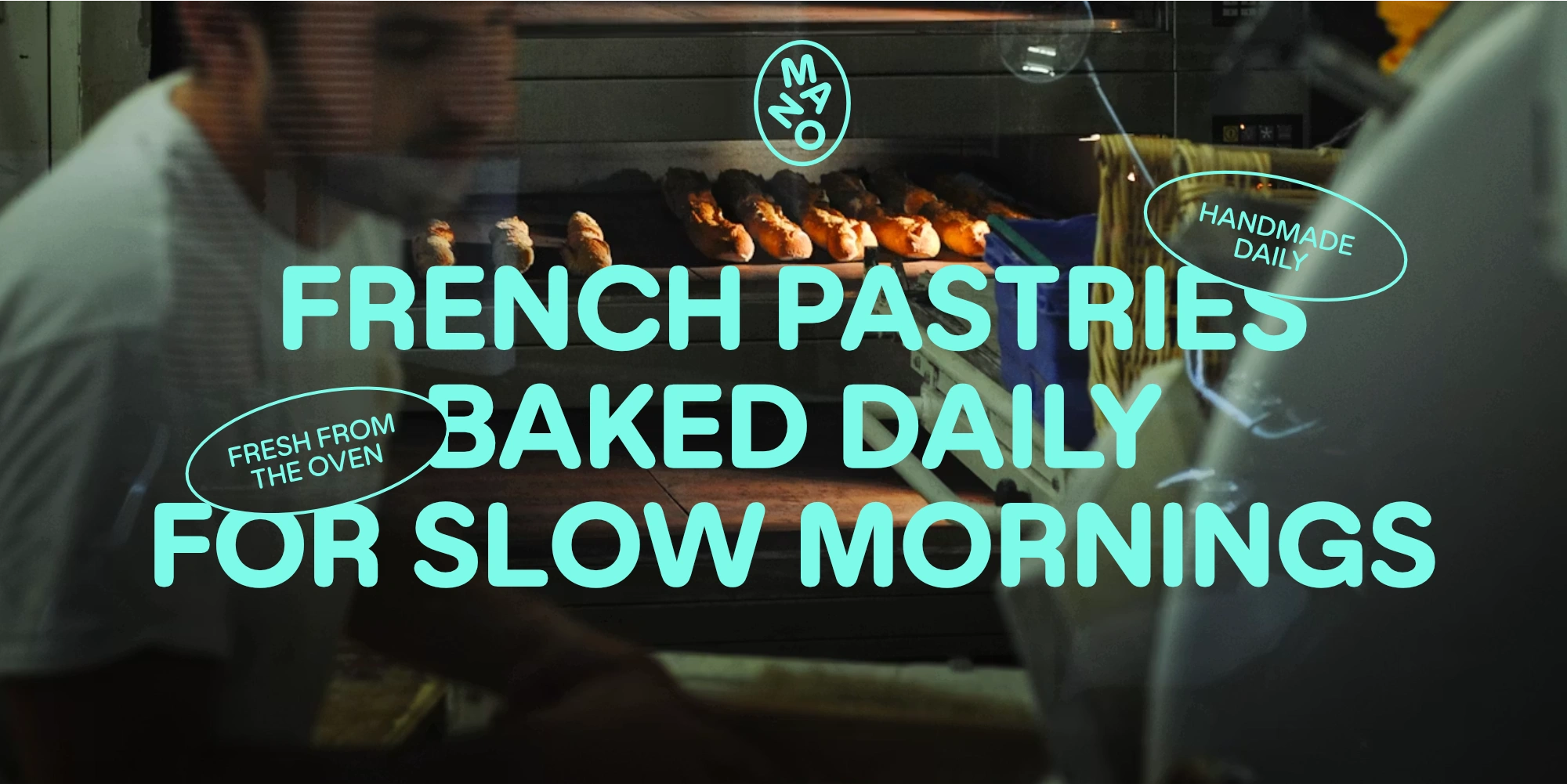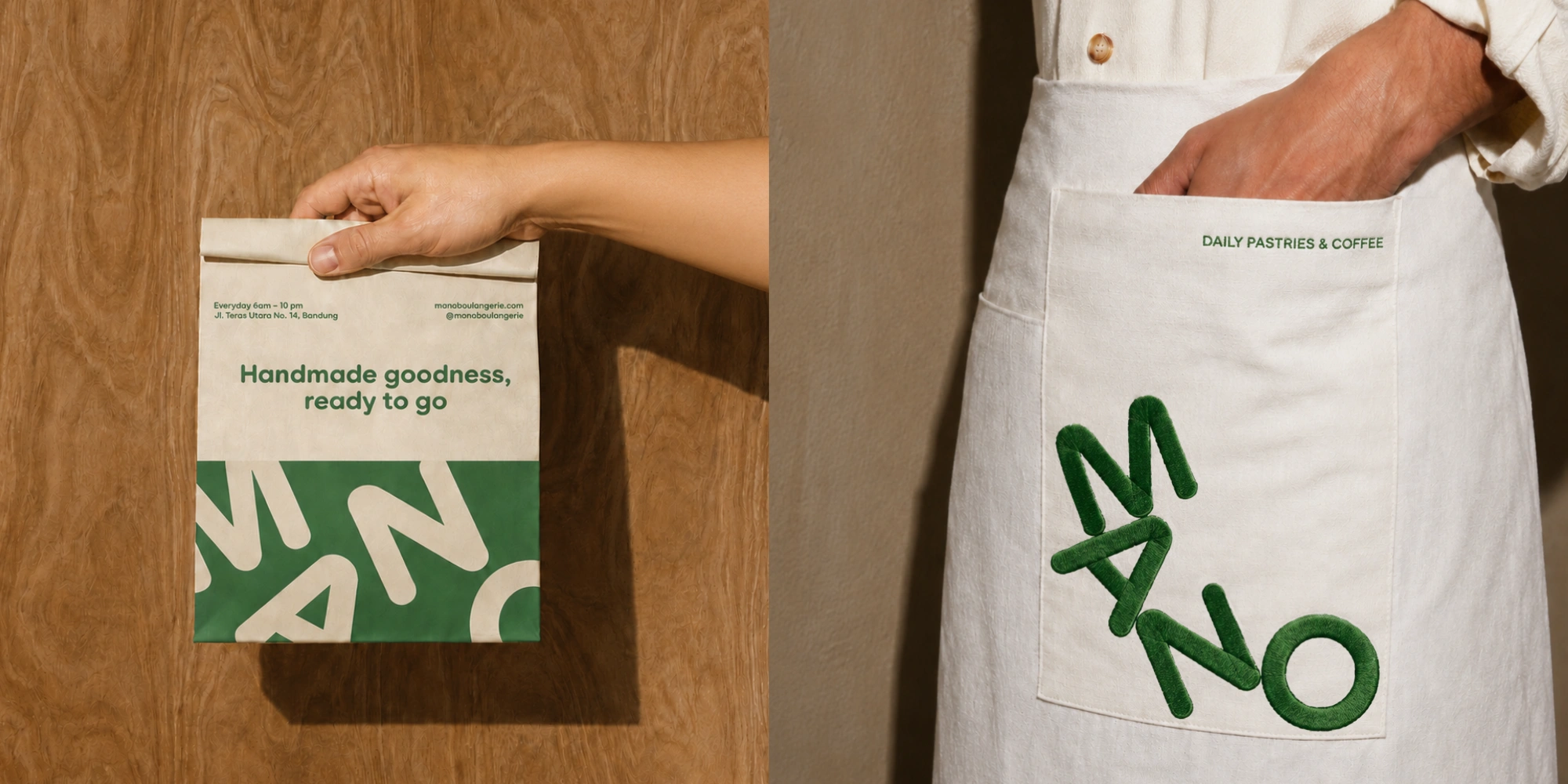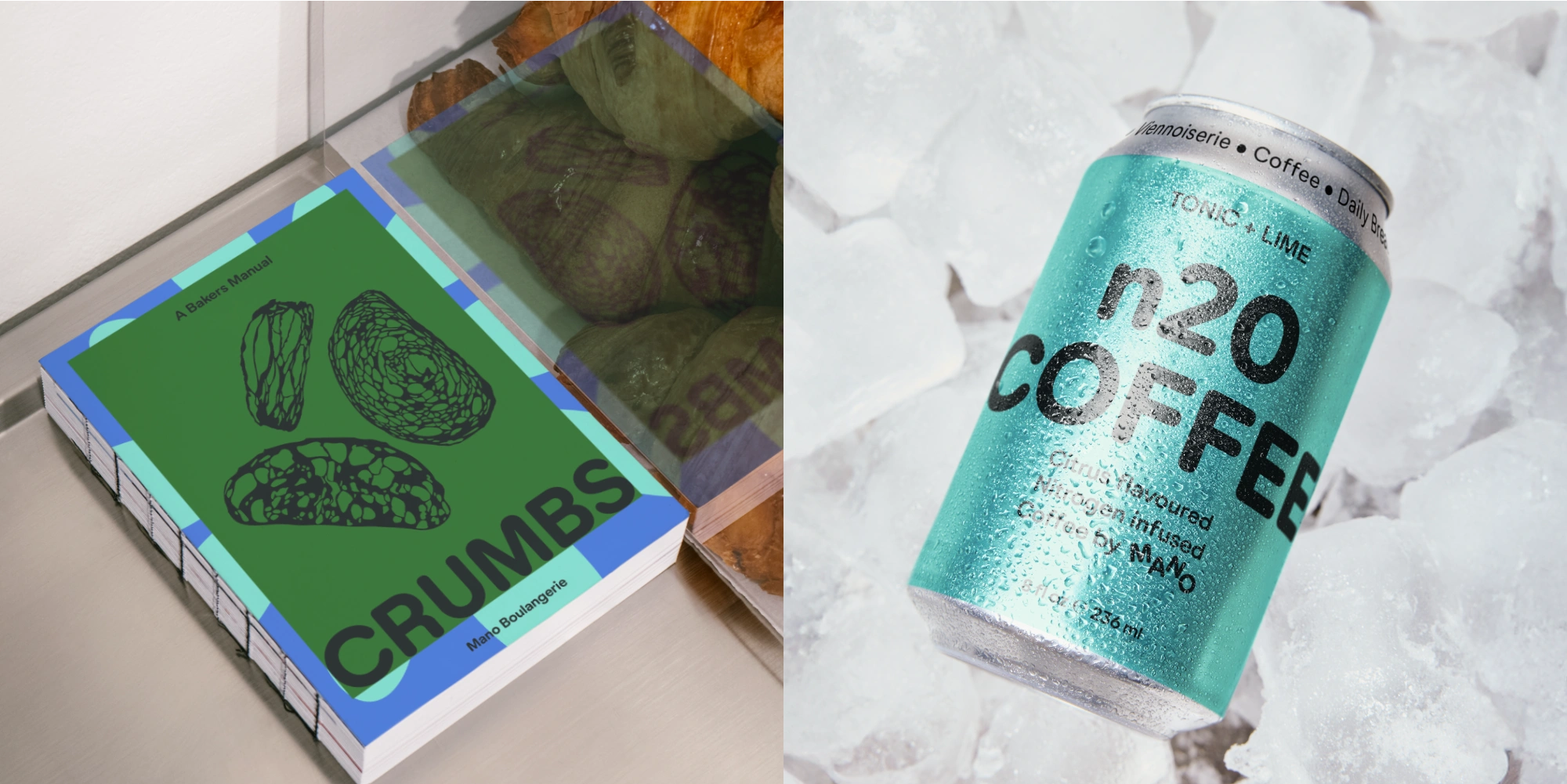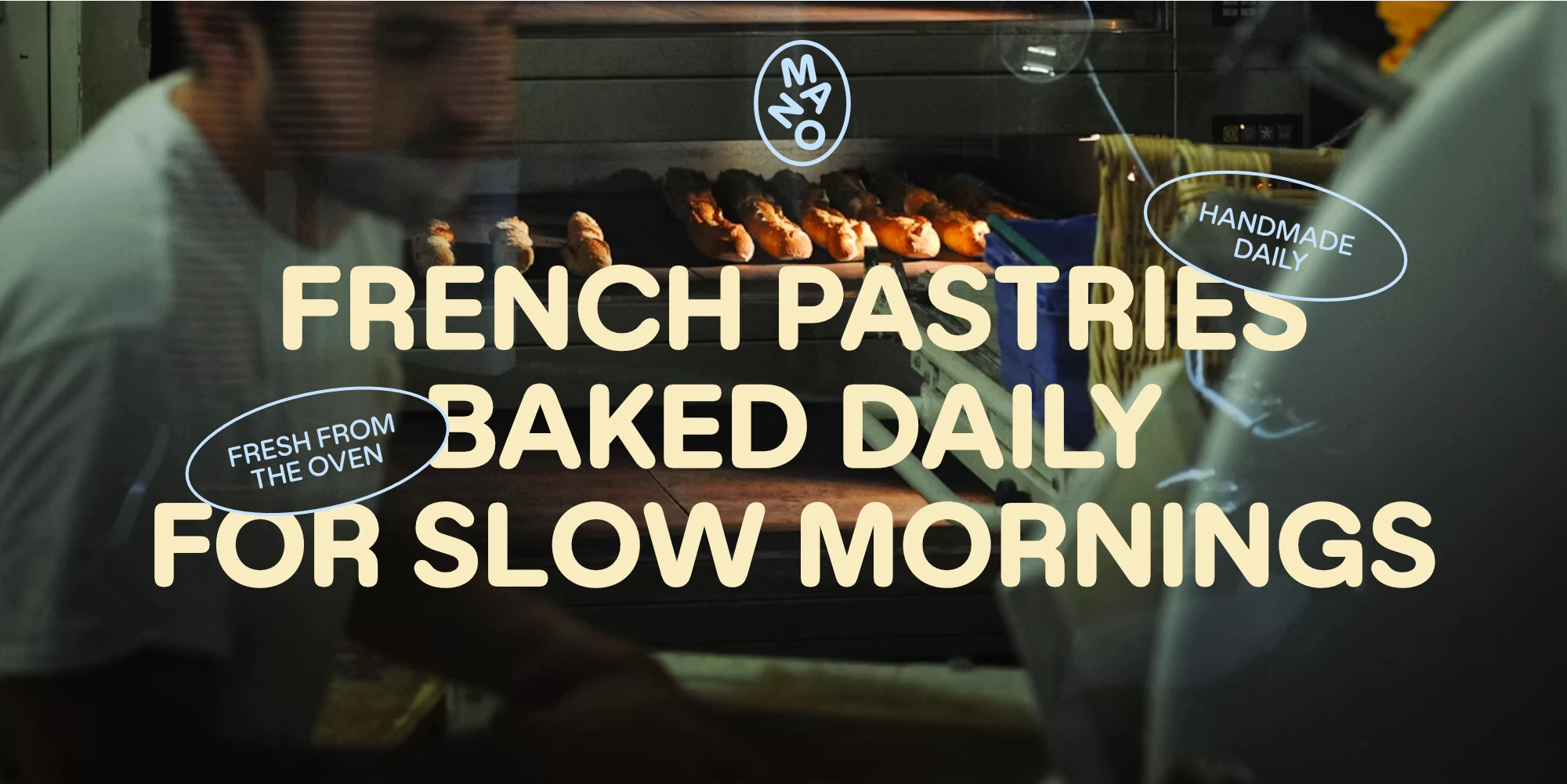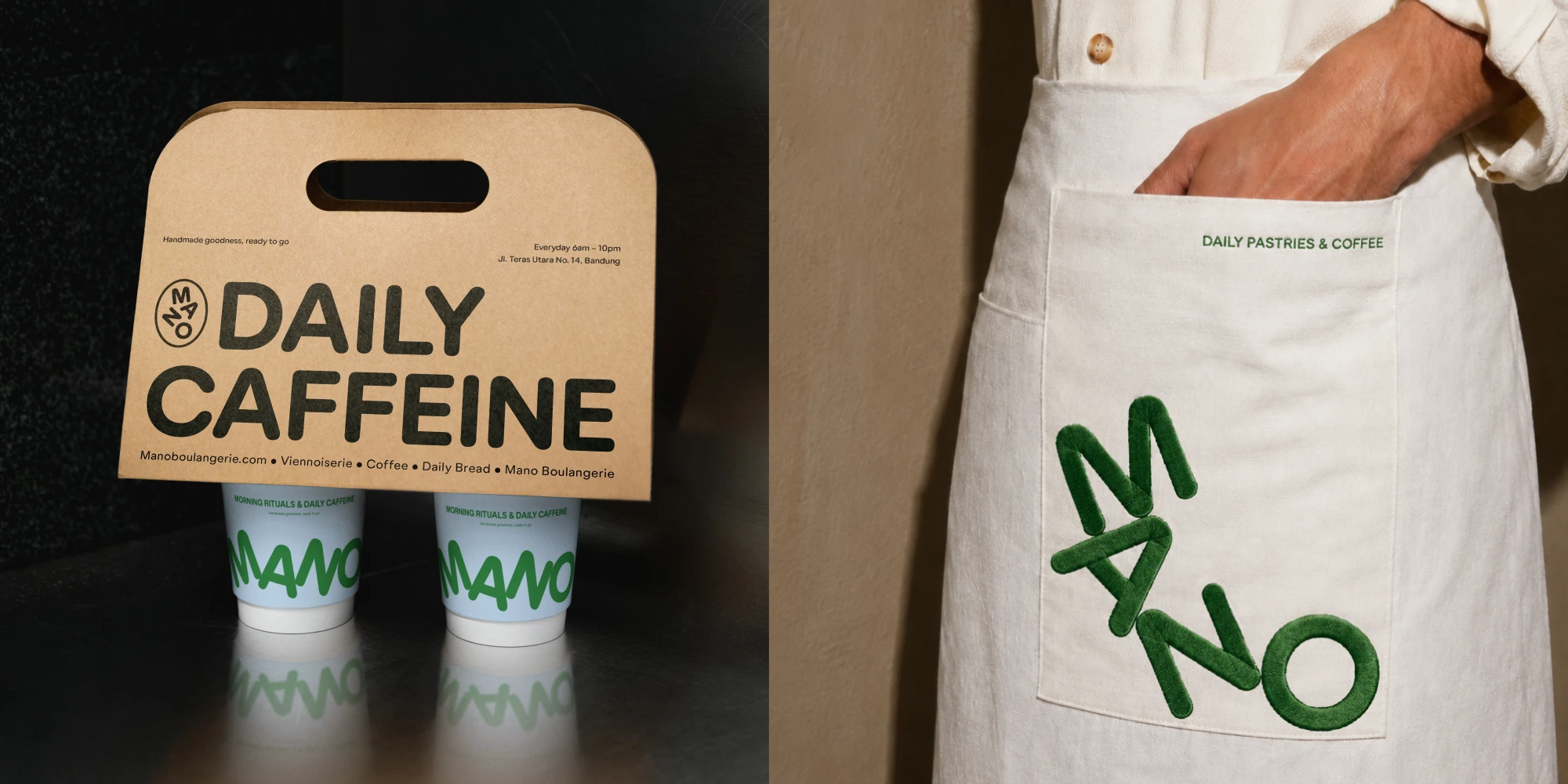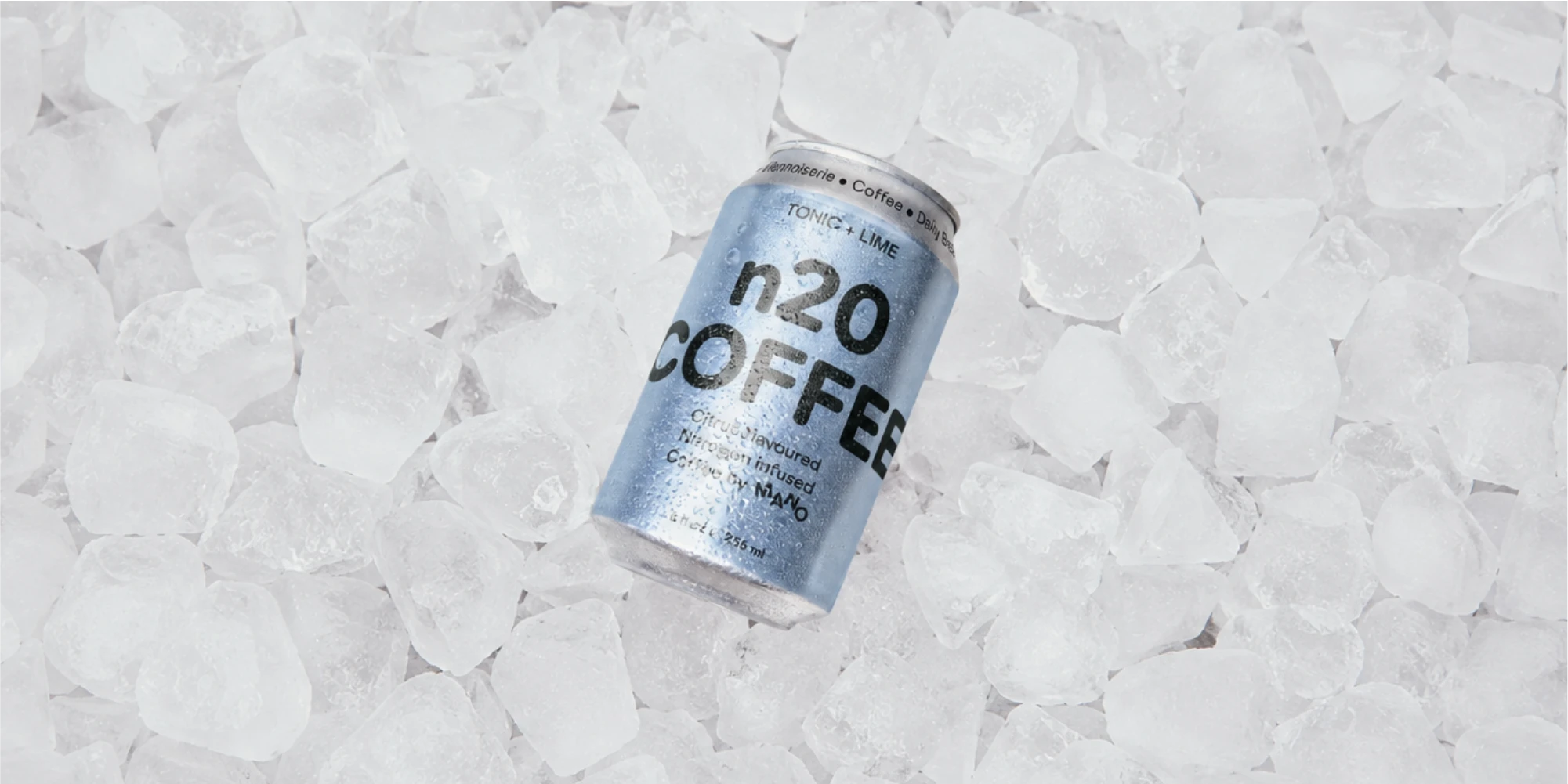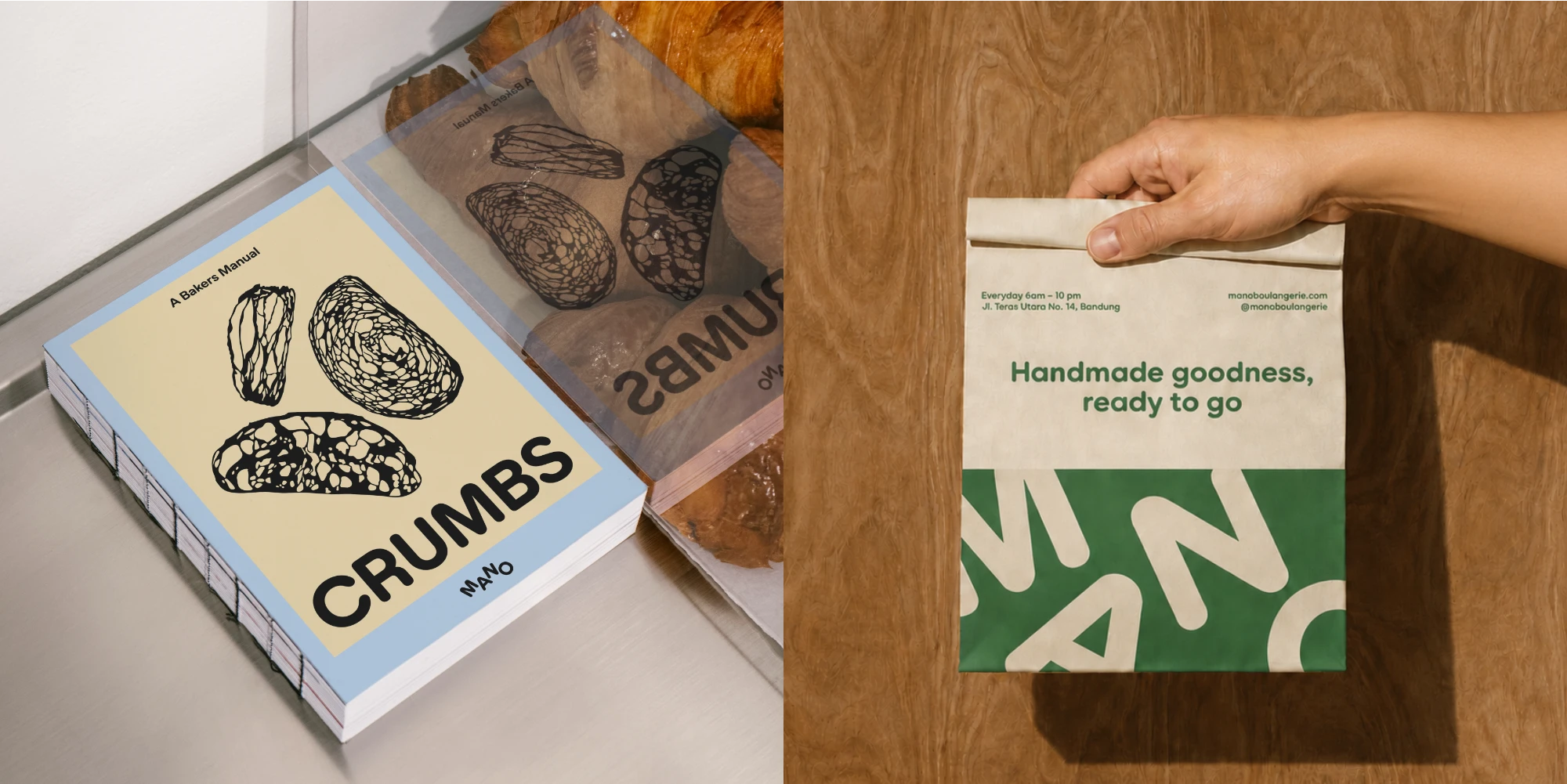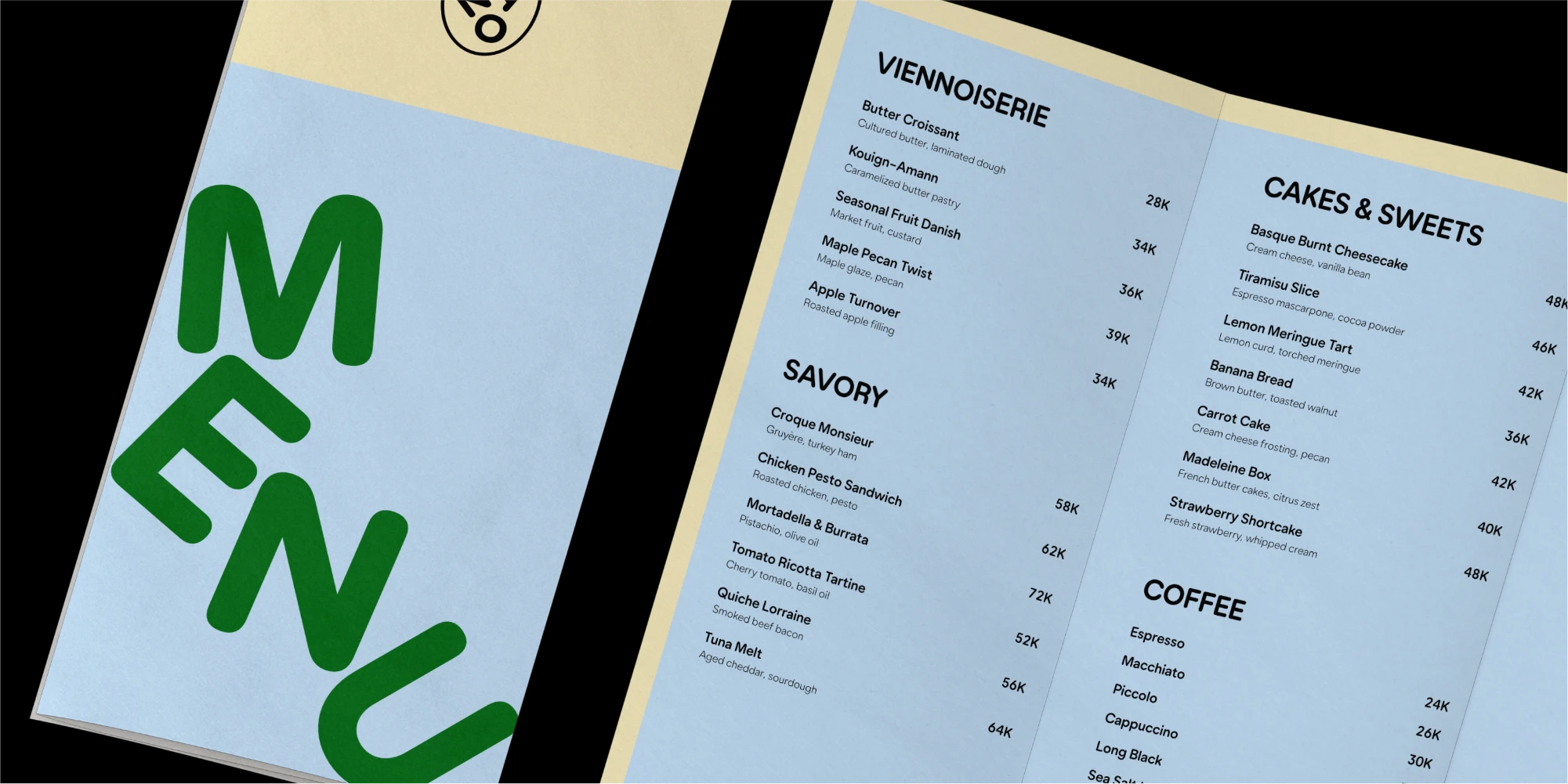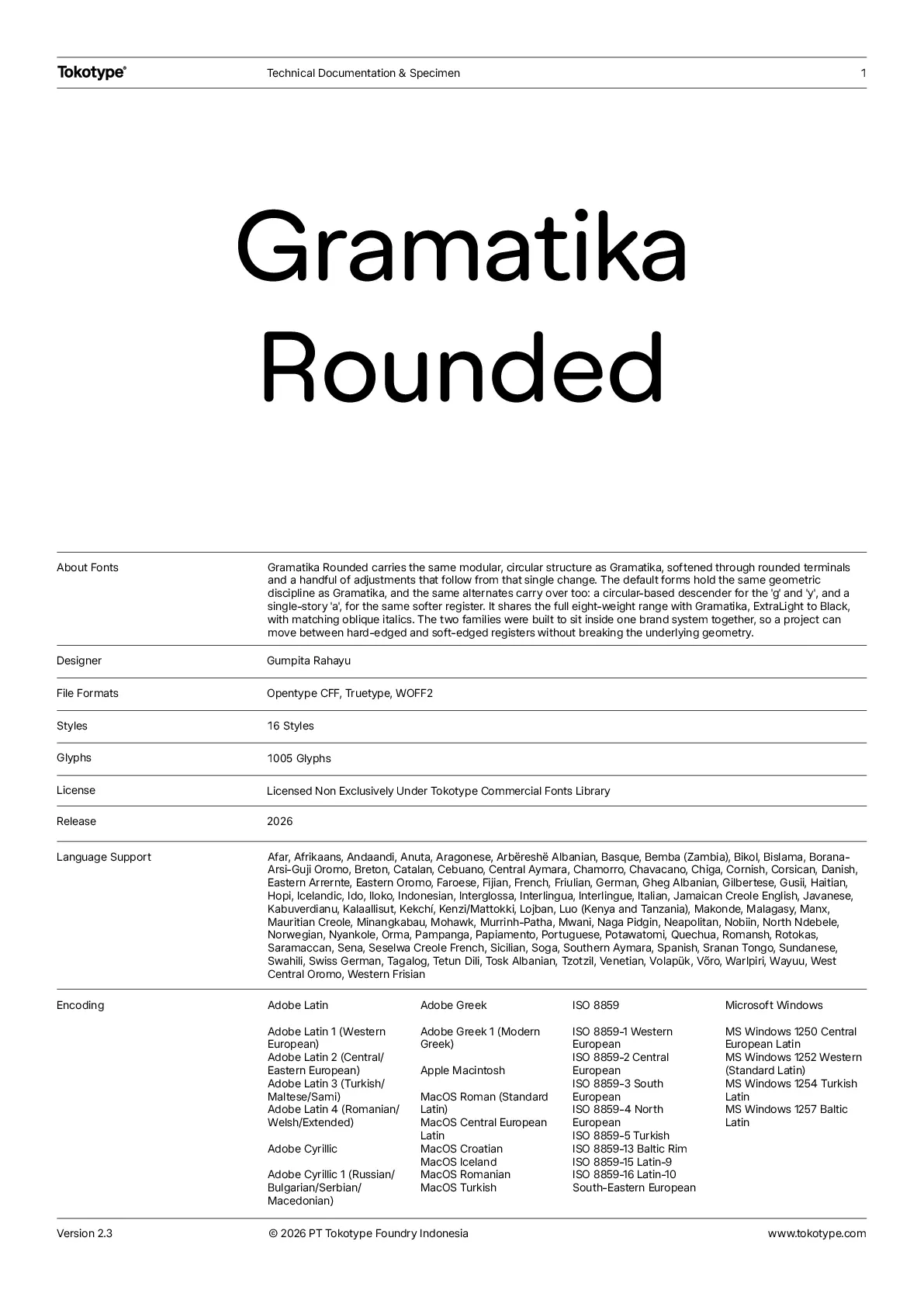
Gramatika Rounded - Geometric Grotesque Sans, Type Specimen & License
Gramatika Rounded
Gramatika Rounded carries the same modular, circular structure as Gramatika, softened through rounded terminals and a handful of adjustments that follow from that single change. The default forms hold the same geometric discipline as Gramatika, and the same alternates carry over too: a circular-based descender for the 'g' and 'y', and a single-story 'a', for the same softer register. It shares the full eight-weight range with Gramatika, ExtraLight to Black, with matching oblique italics. The two families were built to sit inside one brand system together, so a project can move between hard-edged and soft-edged registers without breaking the underlying geometry.
Gumpita Rahayu, Dwiky Prassetio